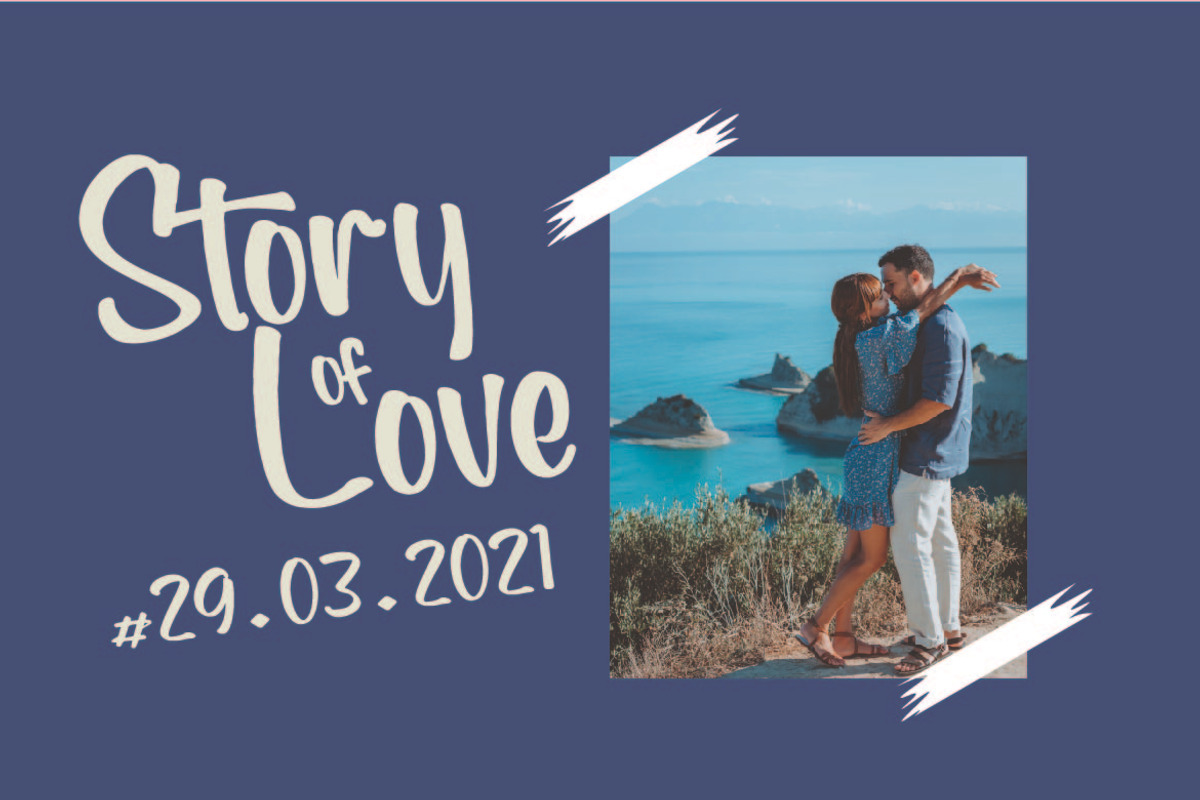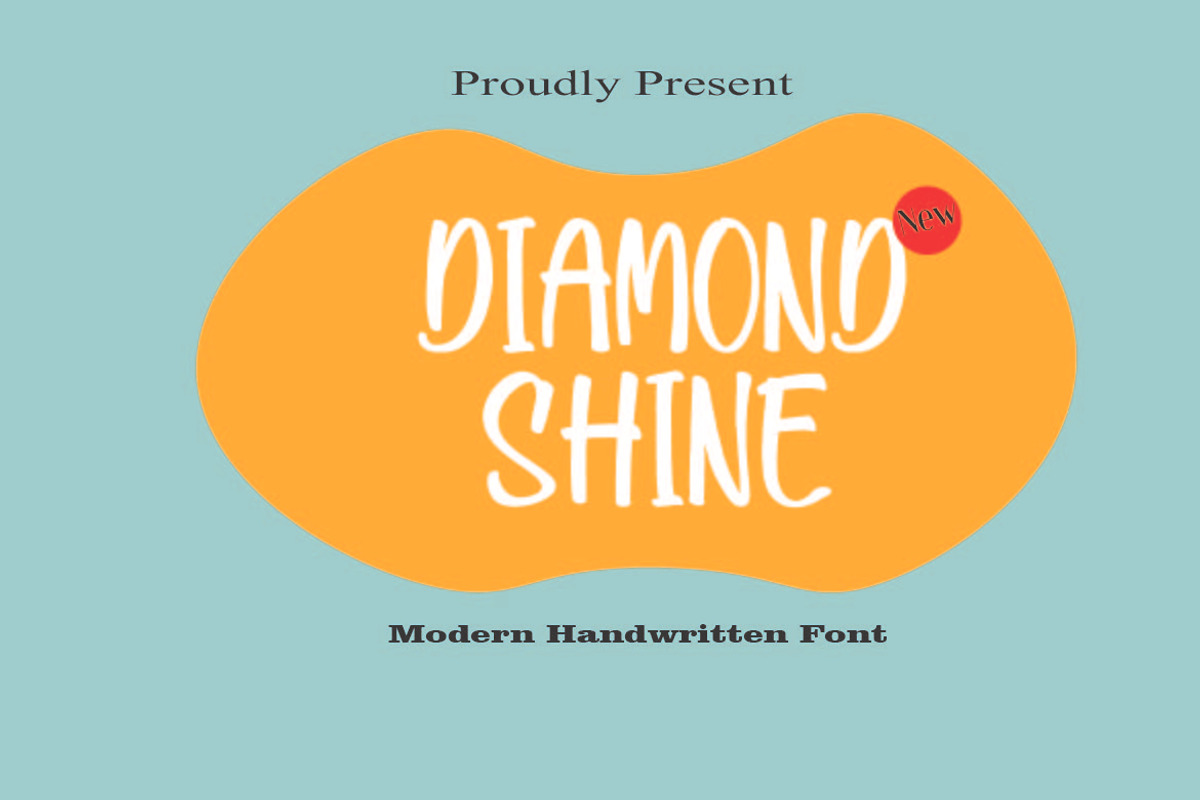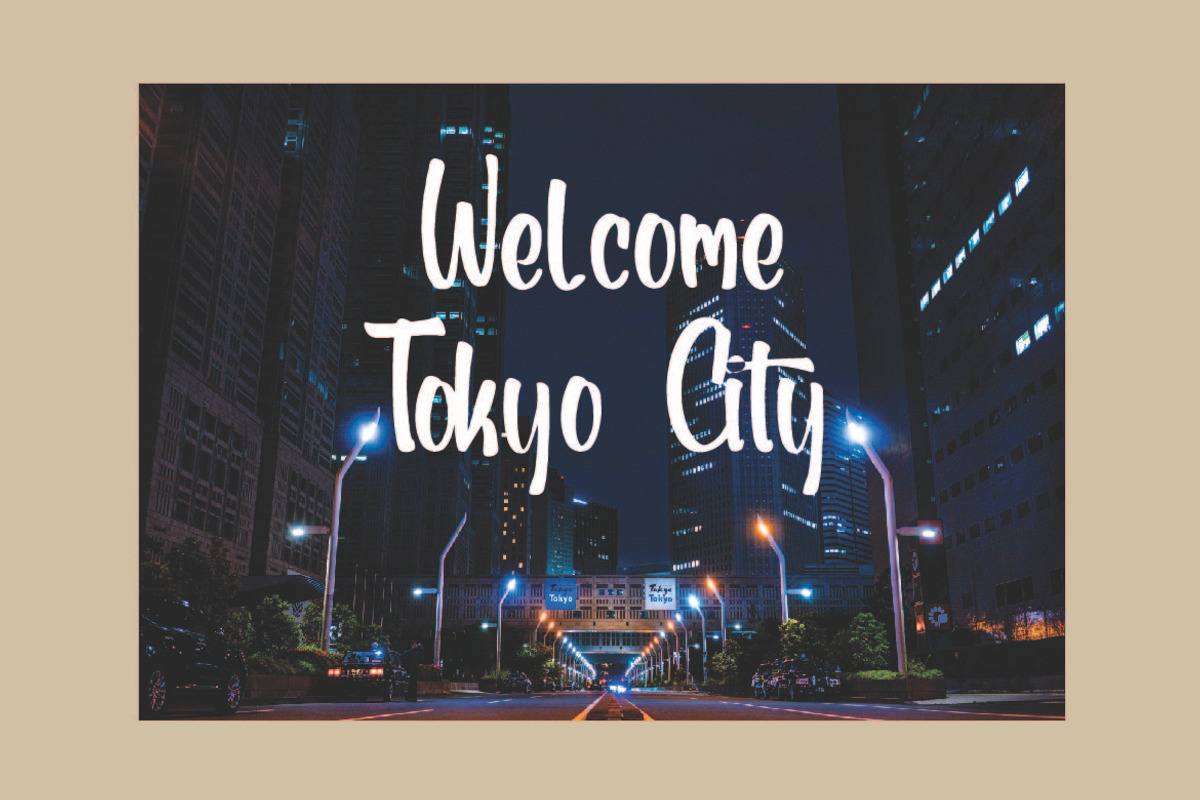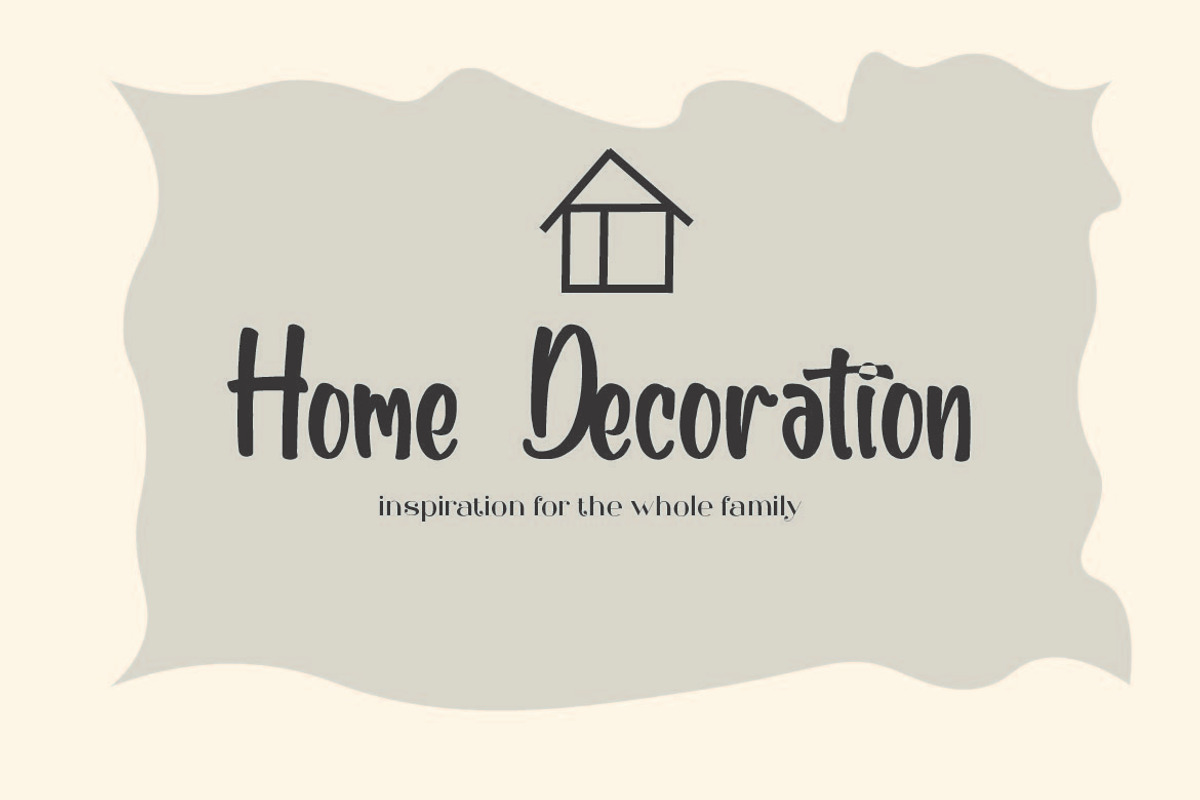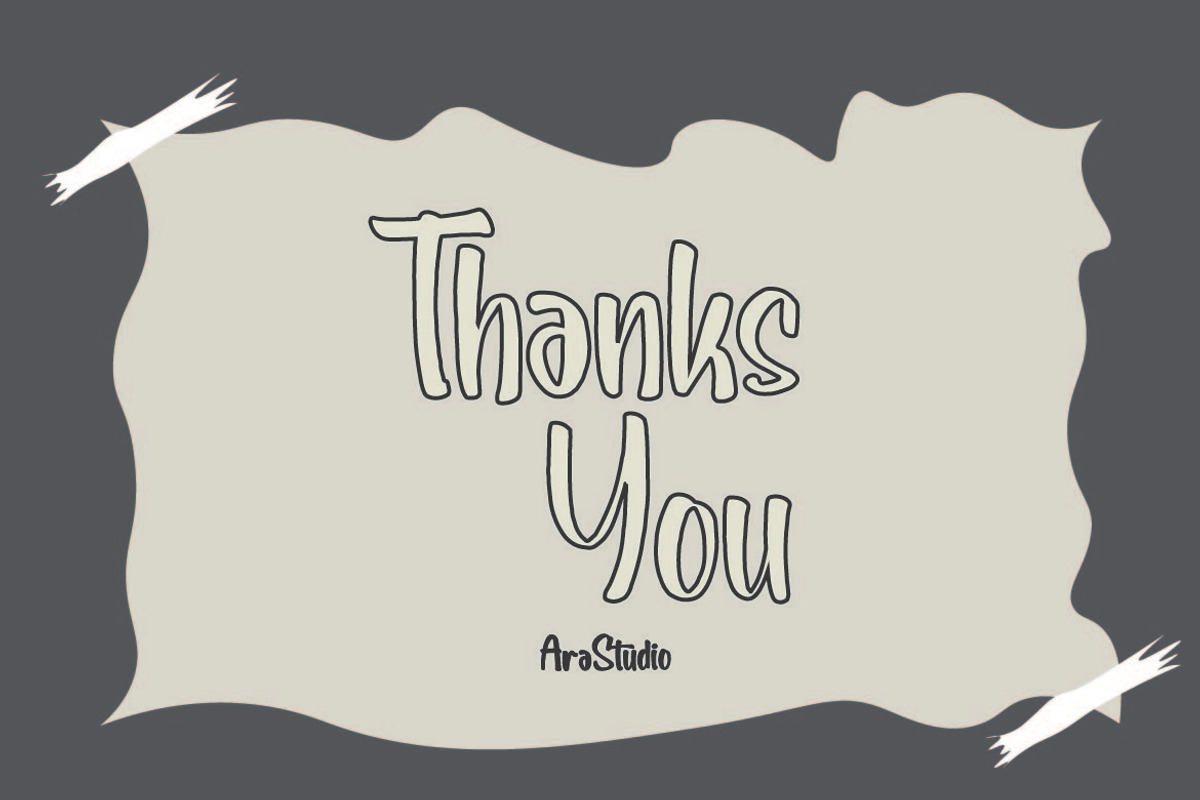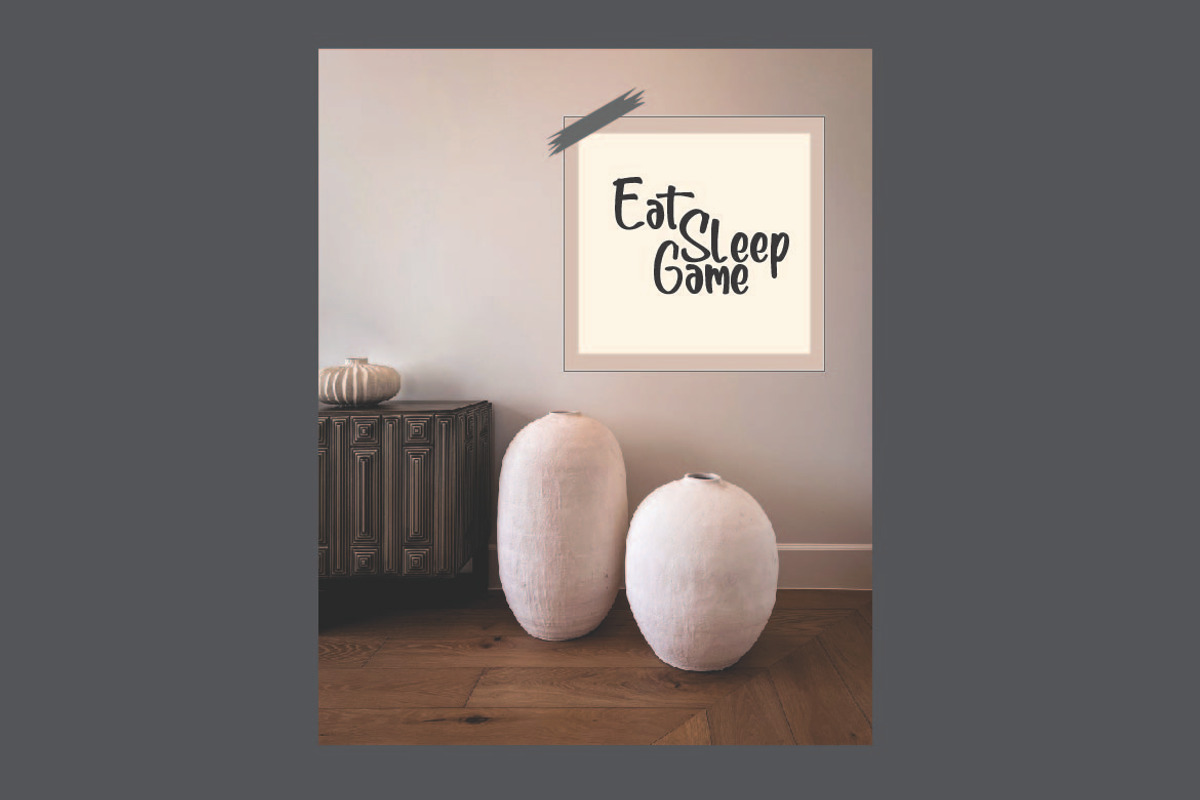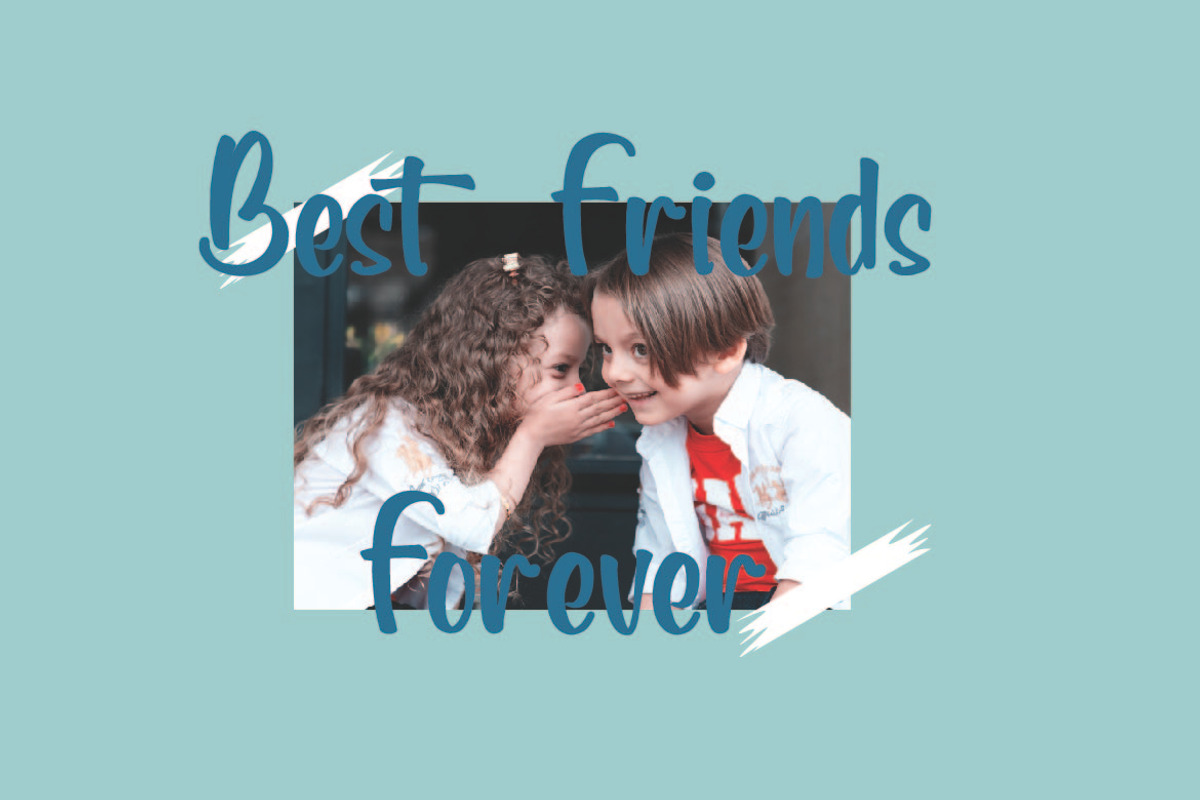
Diamond Shine
Diamond Shine is a lovely script font inspired by handwriting with an aesthetic touch.
Diamond Shine is versatile enough for both web and print and can be used in a variety of projects such as stationery, packaging, apparel, wedding stationery, prints, quotes, social media graphics, planners, greeting cards, logos, branding, and much more.